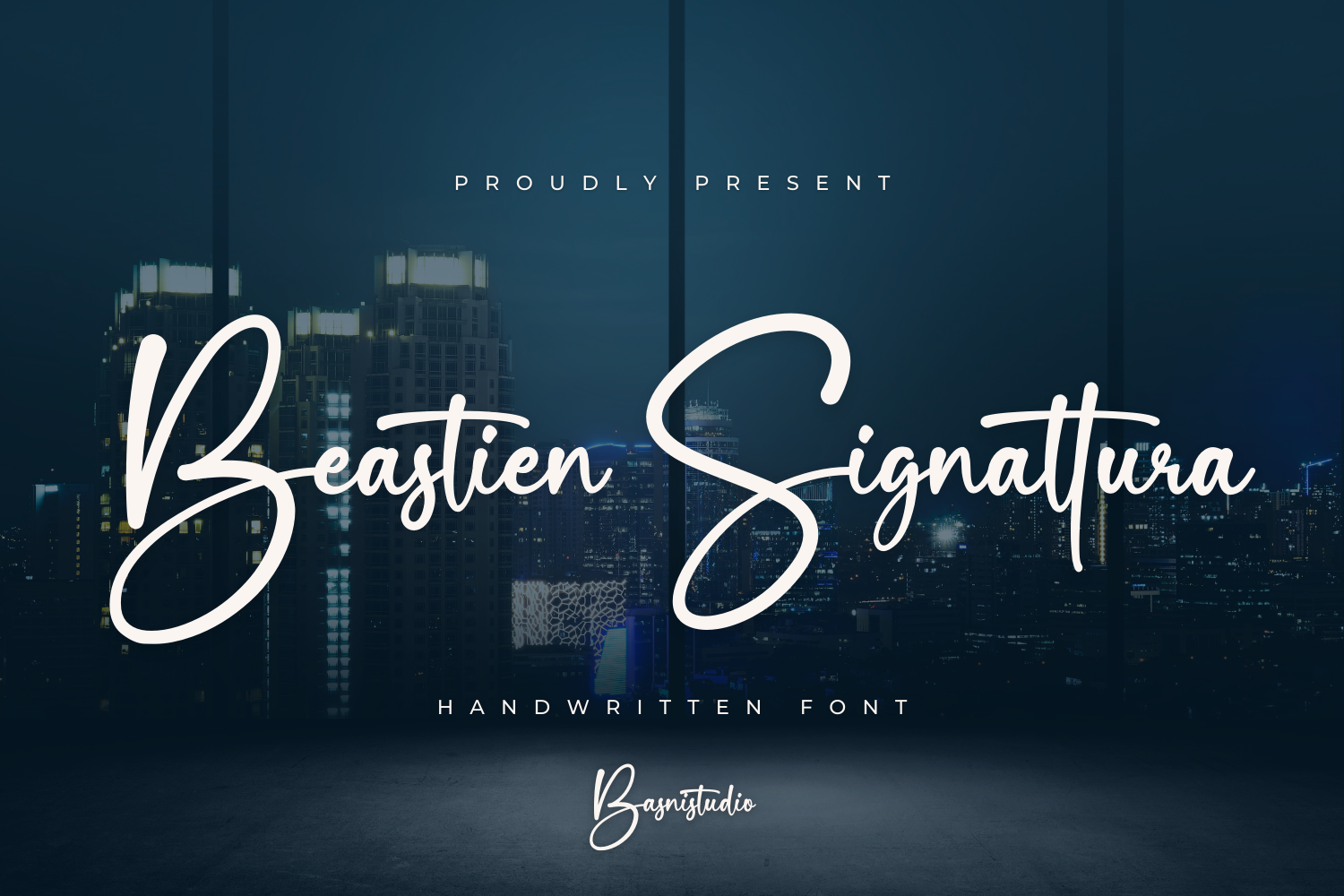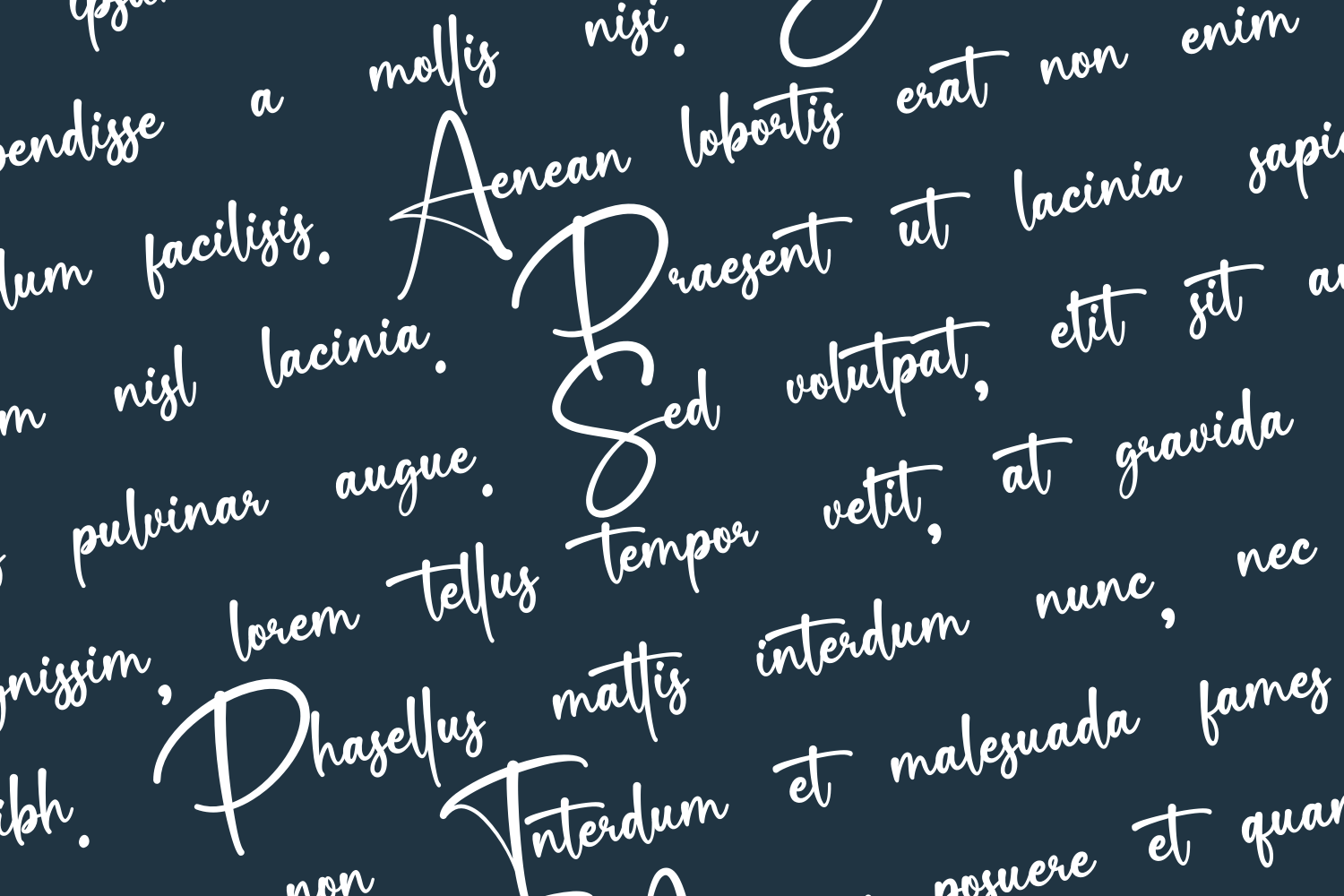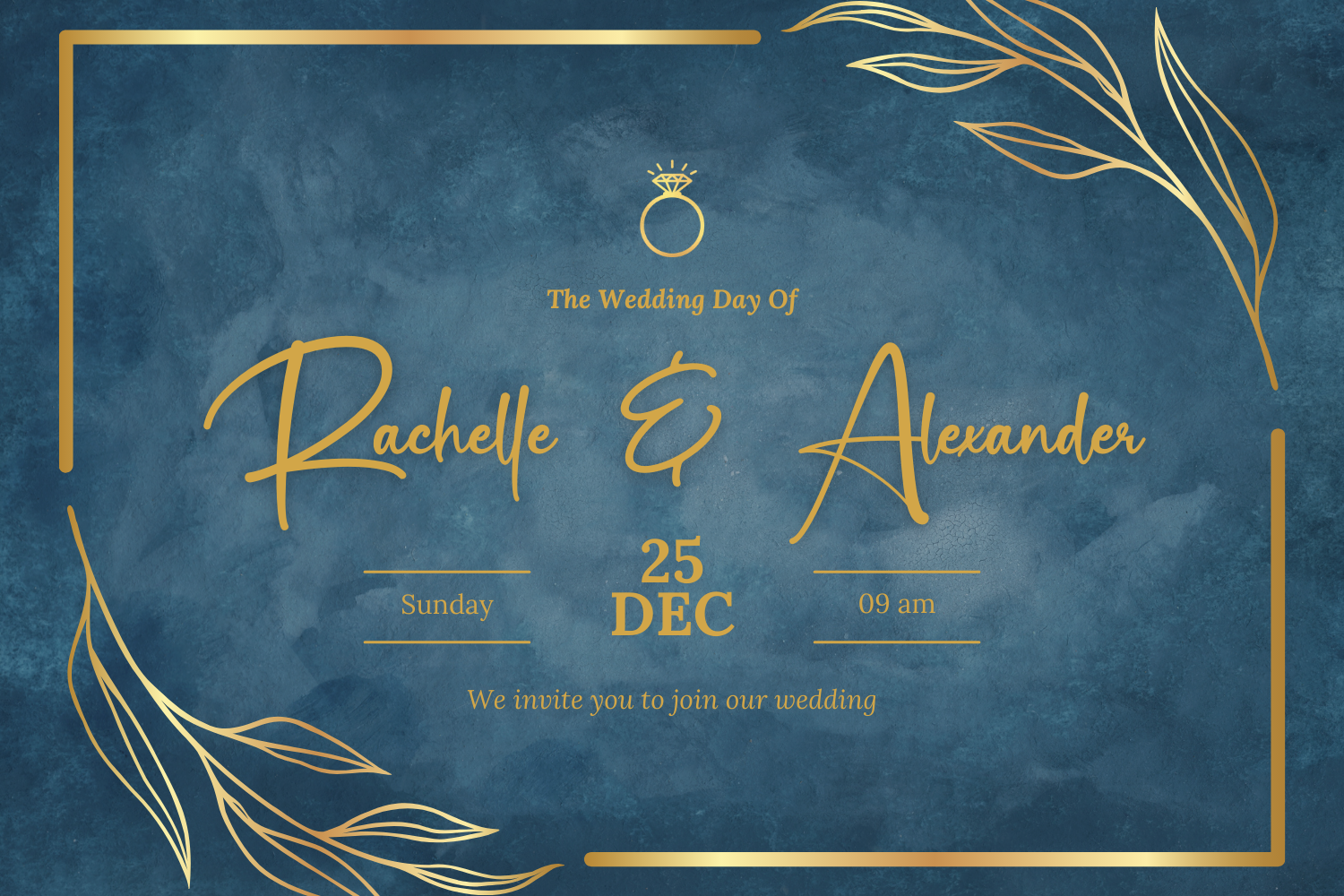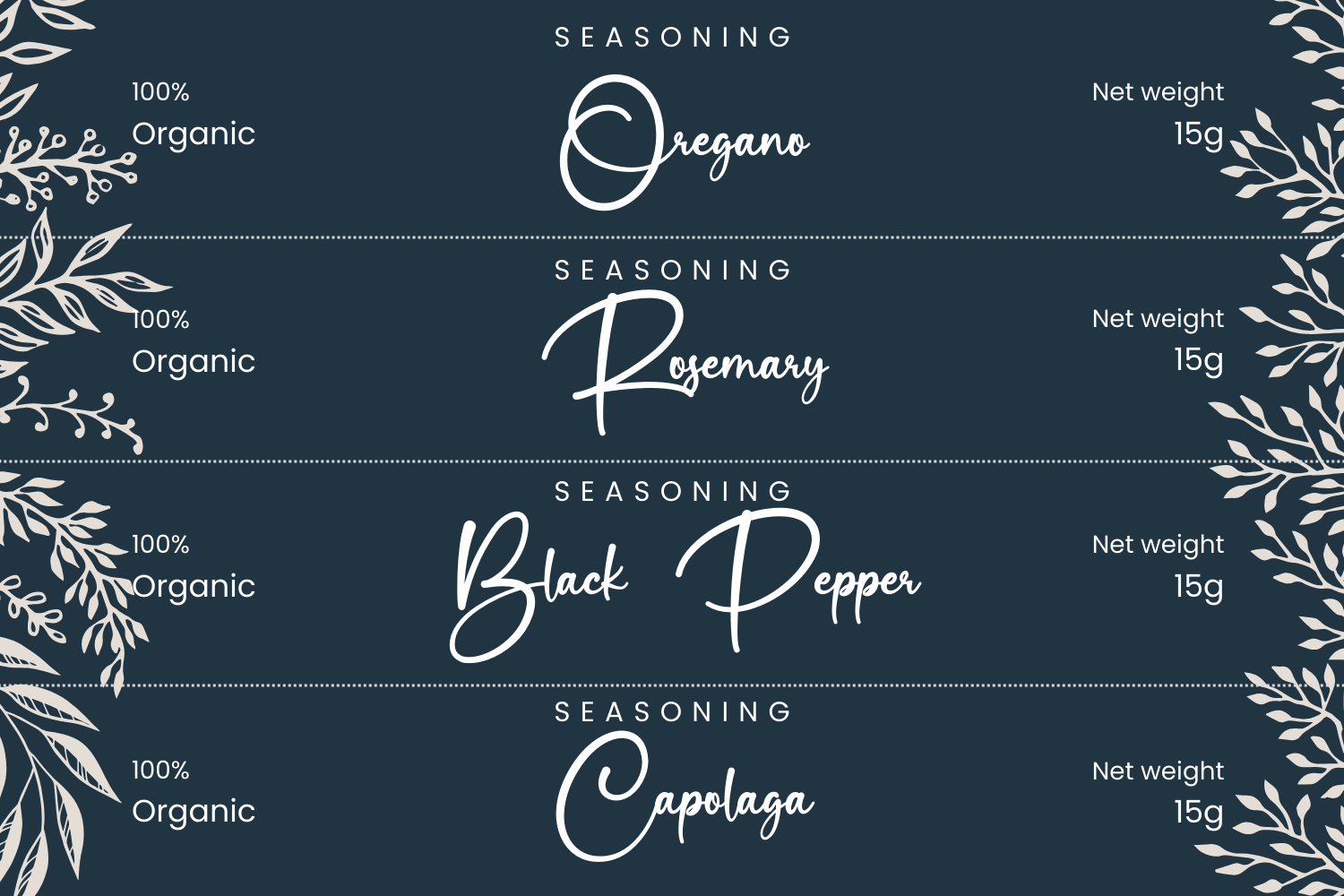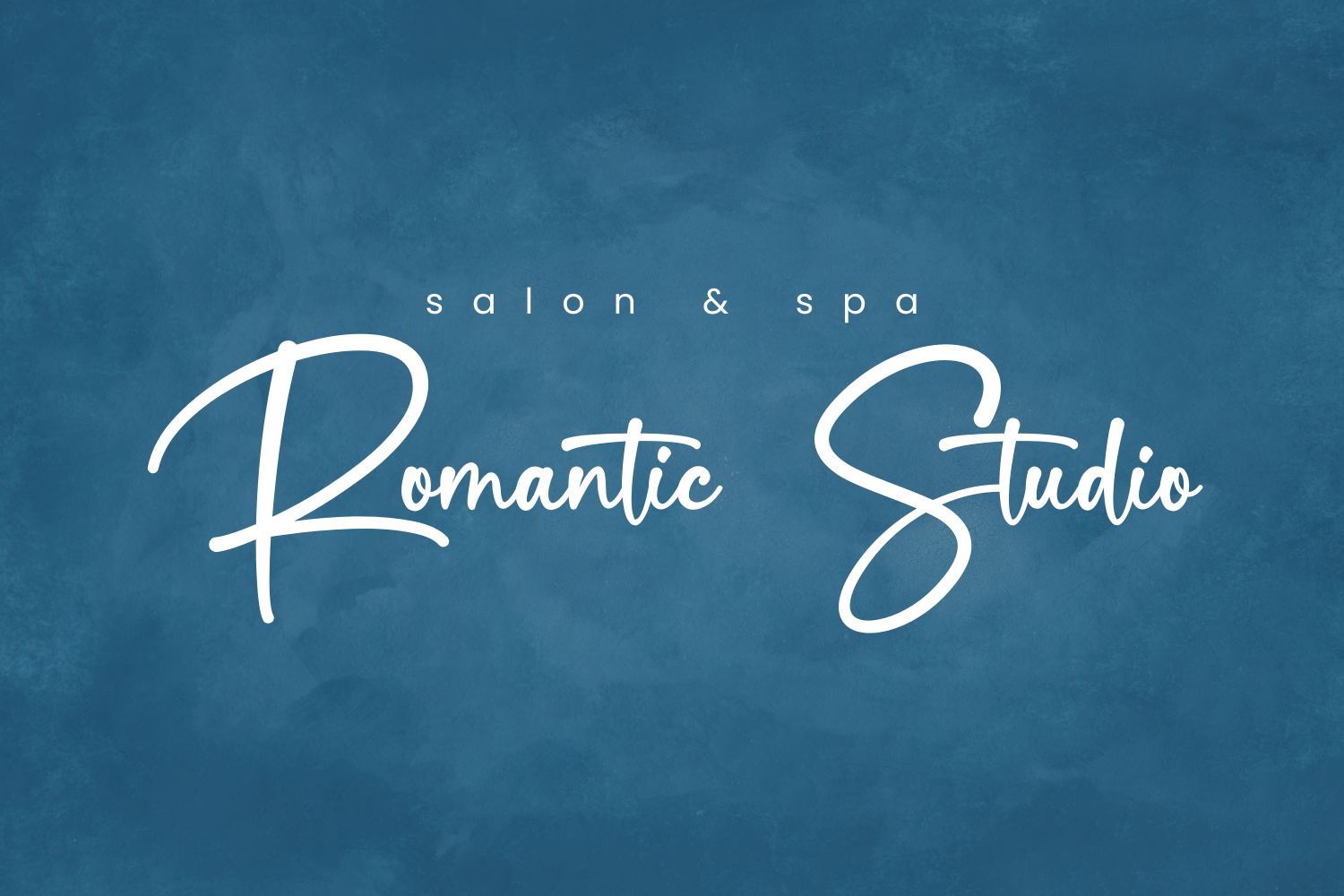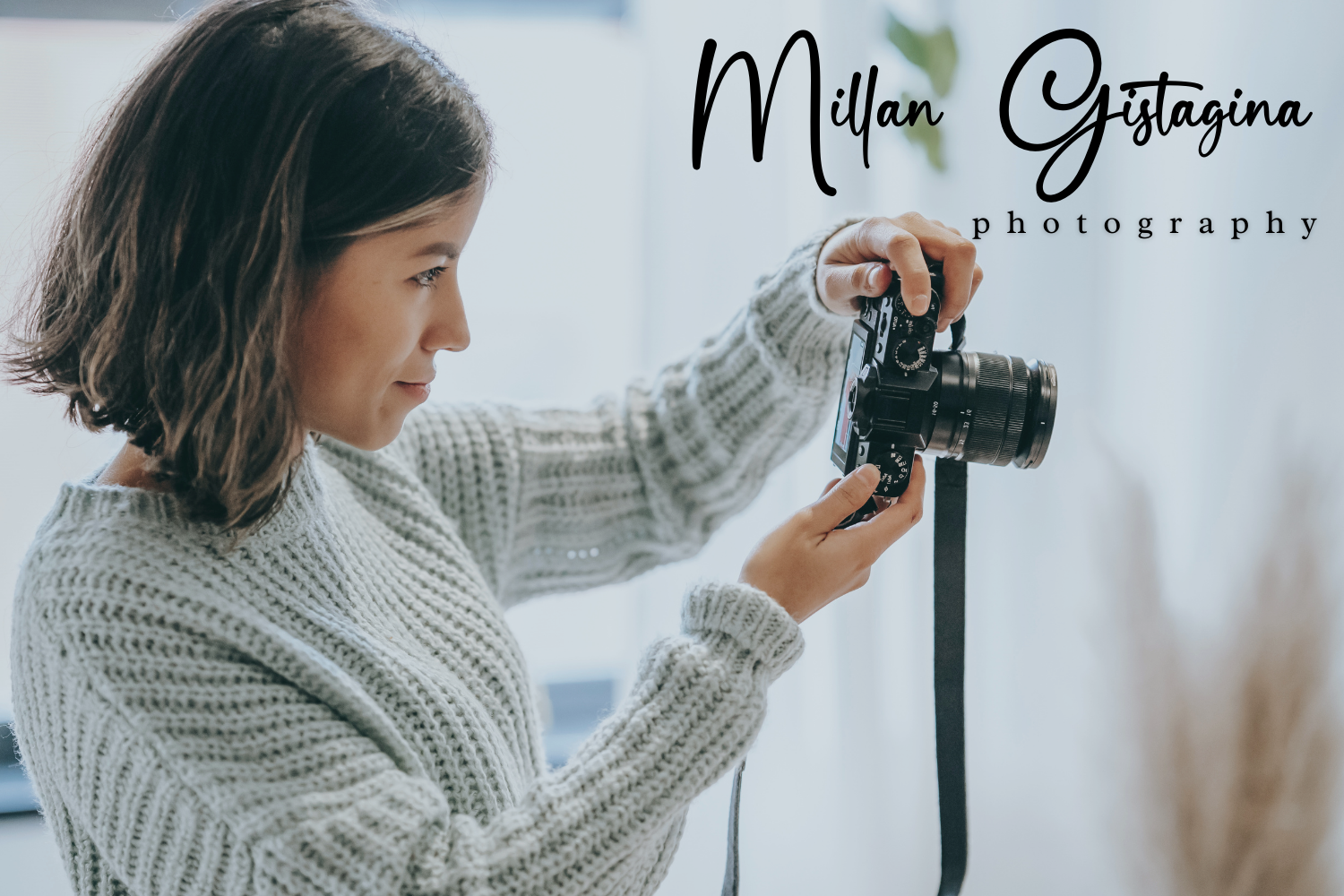
Beastien Signattura
Beastien Signattura a Handwritten Font
The Perfect Handwritten Touch for Your Designs
Introducing Beastien Signattura is a Handwritten Font  that adds a elegant, versatile touch to everything from branding and social media to invitations and packaging.
✔ Elegant & Versatile – Perfect for logos, quotes, greeting cards, and more
✔ Authentic Handwritten Feel – Created with real pen strokes for a natural look
Whether you’re building a powerful brand identity or crafting a standout logo, Beastien Signattura
gives you the creative edge you need.
• Uppercase & lowercase letters
• Ligature
• Numbers & punctuation